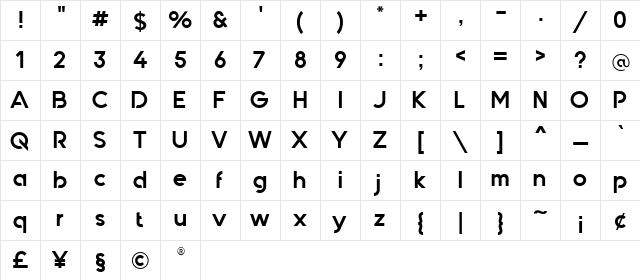
Quantify Bold
| Foundry | Sentype Studio |
| Designer | Saidi Alfianor |
Design Context for Quantify Typeface
Quantify offers clean, dependable letterforms without strong stylistic allegiance, making it a practical choice for designers who need flexibility. Its bold stroke weight gives it real presence on the page.
Pro Tip: Pair Quantify with a font of contrasting weight or personality to build a more expressive typographic hierarchy.